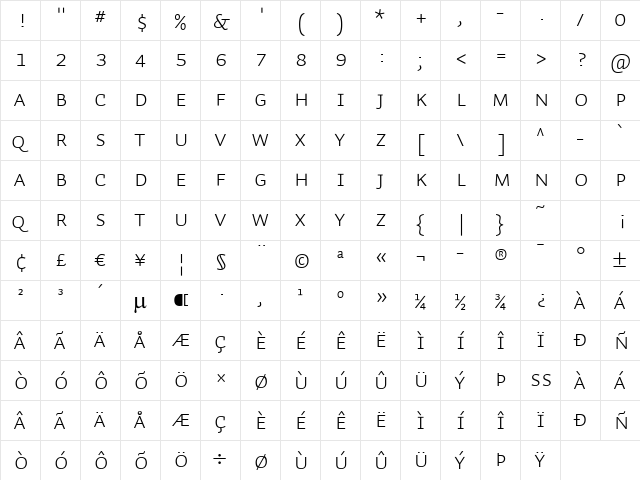
Auto 1 Light SmCp Font Preview
Auto 1 Light SmCp
Design Context for Auto 1 Typeface
Auto 1 takes a measured approach to typography — its balanced proportions and neutral character make it a reliable workhorse for both digital and print work. Its slender proportions lend an understated elegance to any composition.